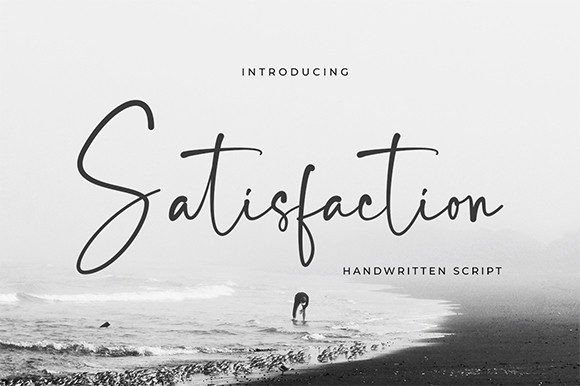
Introduce yourself to Satisfaction Font, a beautiful and lively script font crafted by Bluestype Studio, designed to captivate and inspire. Let your designs dance with the rhythm of its flowing lines and graceful curves.
With Satisfaction Font, you have the perfect tool to craft stunning quotes, add a personal touch to your branding, or create social media posts that pop. Its elegant and casual style brings a natural charm to any project, whether you're working on invitations, posters, flyers, or even logos.